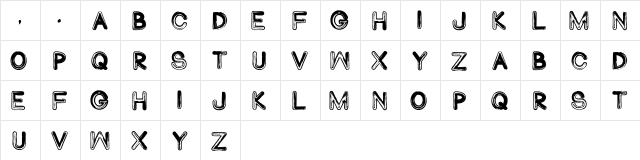
Abduco Regular
| Foundry | Font Monger |
| Designer | Chris Vile |
Design Context for Abduco Typeface
Abduco is a composed and adaptable typeface that performs quietly and consistently across a wide range of design contexts.